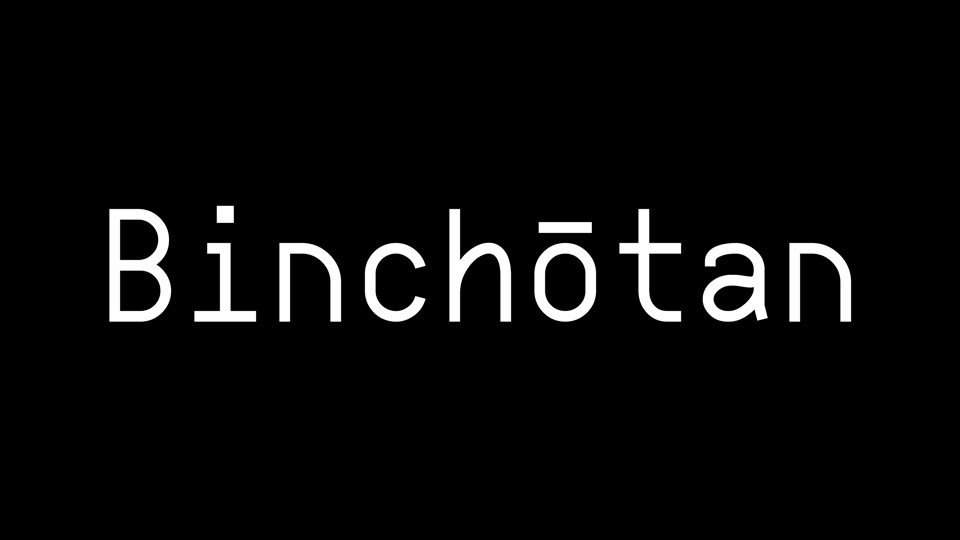
Download Binchōtan font, a monospaced typeface for typesetting certain electronic documents. Binchōtan can be used for writing code, HTML documents, terminal and system use.
Designer: R.V.Klein